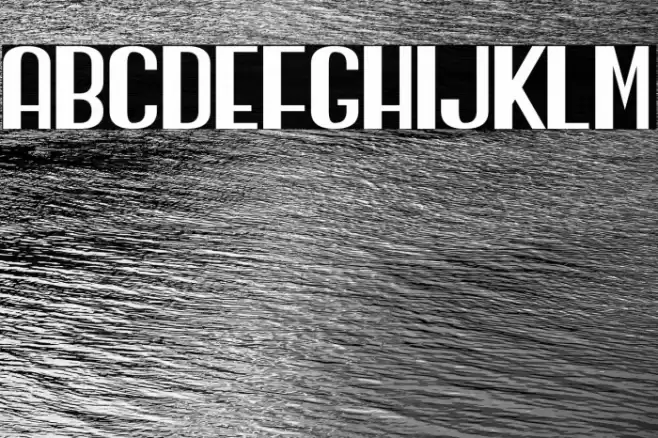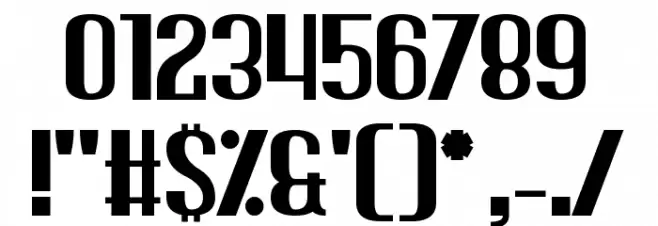
Terminal Day Font
Terminal Day Description
This font features a bold, geometric design with a strong presence. The uppercase letters are tall and narrow, with consistent stroke widths that give it a modern and industrial feel. The lowercase letters maintain the same geometric style, ensuring uniformity across all characters. Numbers are similarly bold and clear, making them highly legible. The special characters are designed to match the overall aesthetic, with sharp angles and clean lines. This font is ideal for creating a striking visual impact, whether used in headlines or logos.
A bold, geometric font with a modern, industrial aesthetic from Uncategorized fonts.
- Proposed Projects: Ideal for branding, posters, headlines, and any project requiring a strong visual impact.